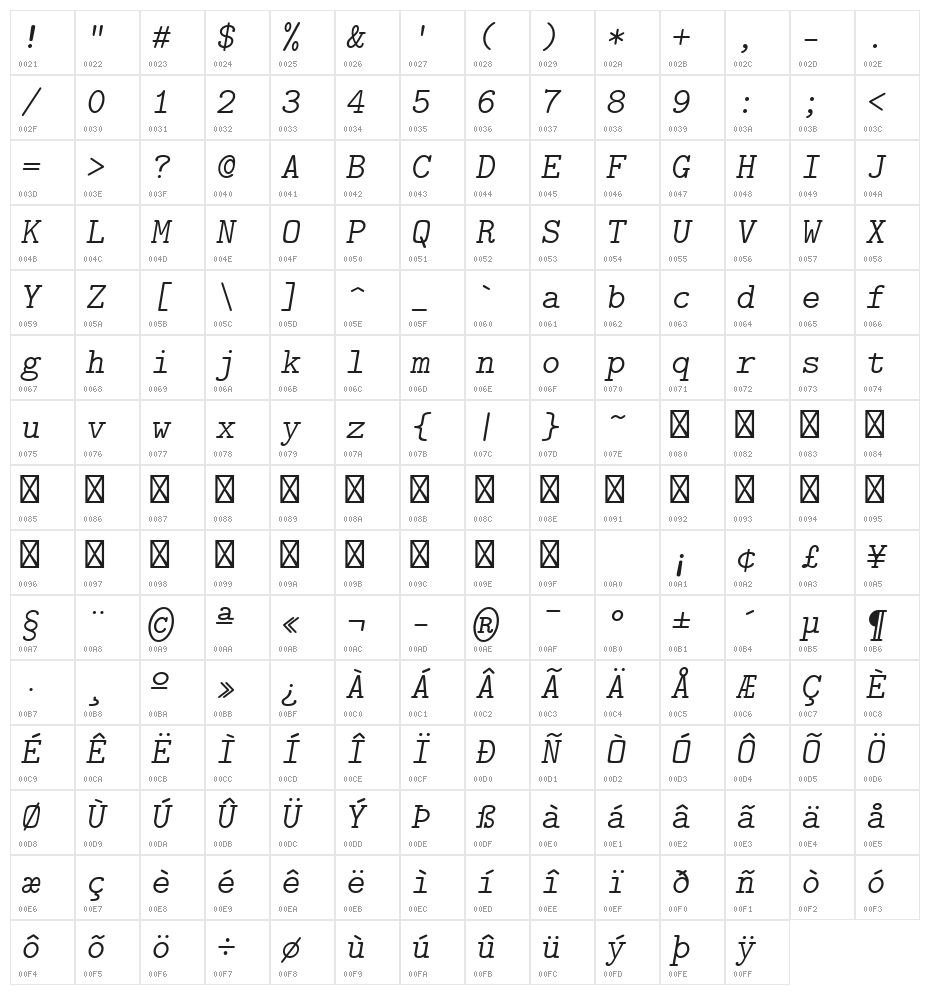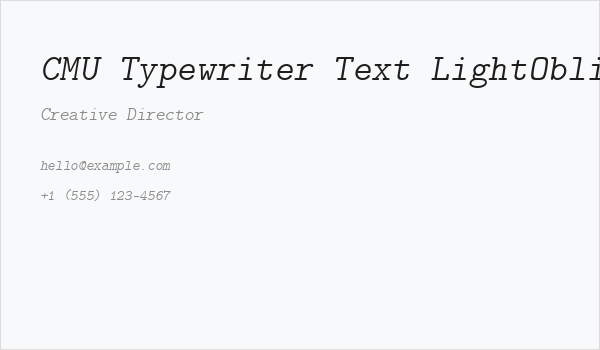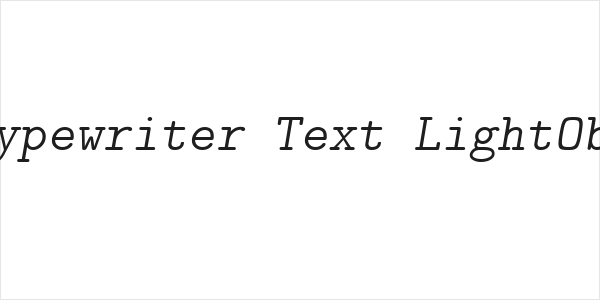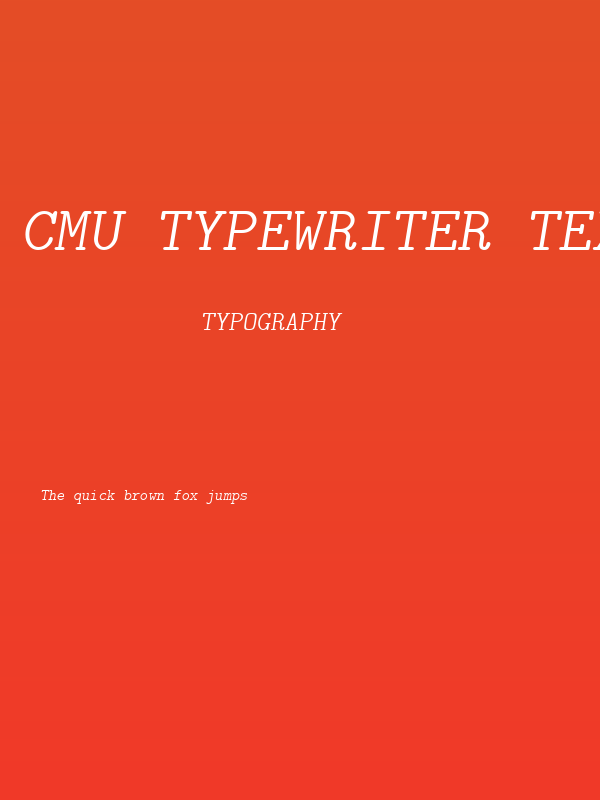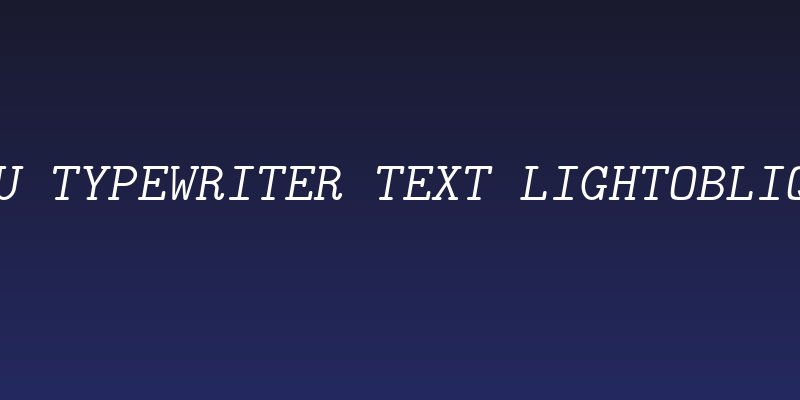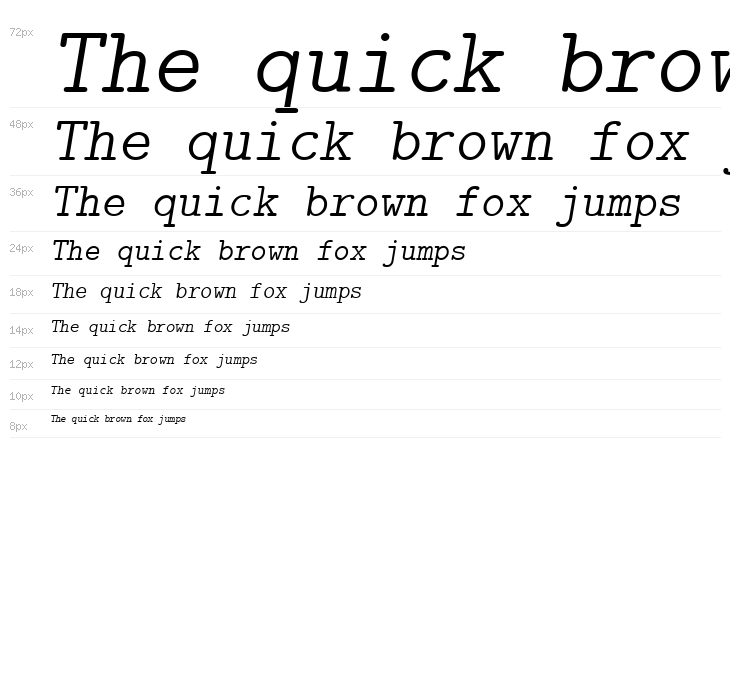
CMU Typewriter Text LightOblique Font
CMU Typewriter Text LightOblique Description
This font features a classic typewriter style with a light oblique slant, giving it a distinctive and slightly informal appearance. The characters are monospaced, ensuring uniformity in width, which is characteristic of traditional typewriter fonts. The strokes are consistent and clean, with a slight curvature that adds a touch of elegance. The uppercase letters are bold and prominent, while the lowercase letters maintain a balanced and readable form. The numerals and special characters are clear and well-defined, making this font versatile for various uses.
| Use Case | Body text, Coding, Creative writing |
| Proposed Projects | Ideal for projects that require a vintage or retro aesthetic, such as typewriter-themed designs, coding interfaces, or creative writing projects. |